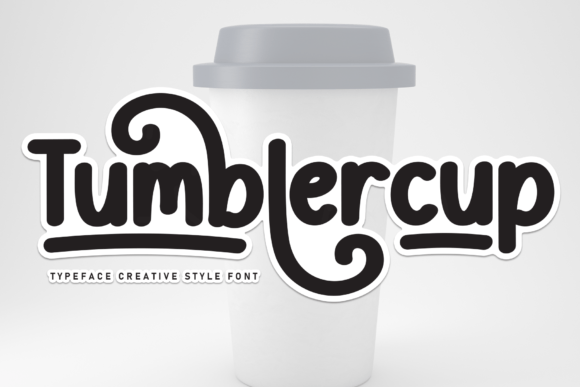
Journey into the captivating realm of Tumblercup, a whimsical handwritten font family that radiates mirth and delight, infusing your designs with a cheerful and playful ambiance. Conjuring images of merriment and frolic, Tumblercup's charming script dances across the page, evoking a sense of unbridled joy and exuberance. Its playful characters intertwine harmoniously, forming a visual symphony that captures the essence of happiness and carefree spirit.
Unleash your creativity and let Tumblercup's enchanting aura illuminate your designs. Picture the smiles it will evoke as it graces your branding, packaging, logotypes, and headlines, spreading cheer wherever it goes. Envision the joy it will bring to your wedding invitations, adding a touch of whimsy and enchantment to your special day.
Dive into the world of Tumblercup and let its vibrant energy captivate your audience. Its whimsical nature effortlessly elevates your designs, turning them into captivating works of art. Experience the magic of Tumblercup and watch as it transforms your creations into extraordinary expressions of happiness and delight.